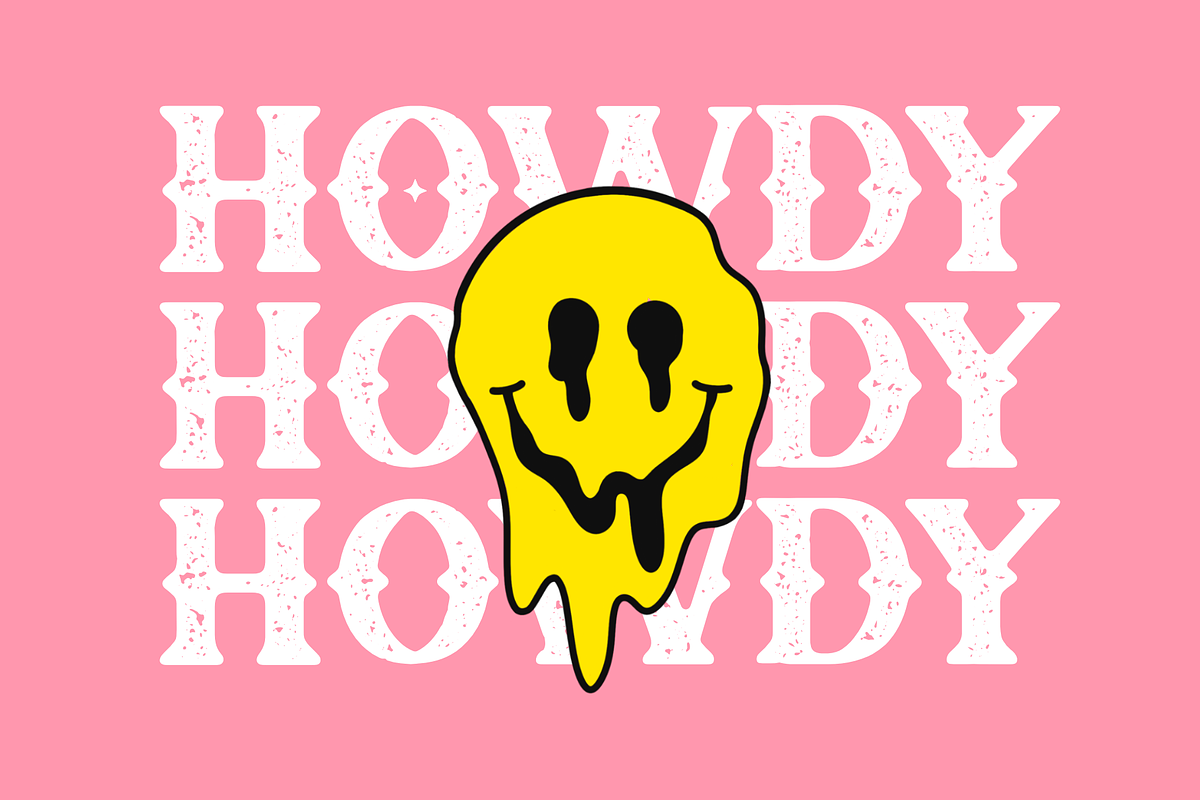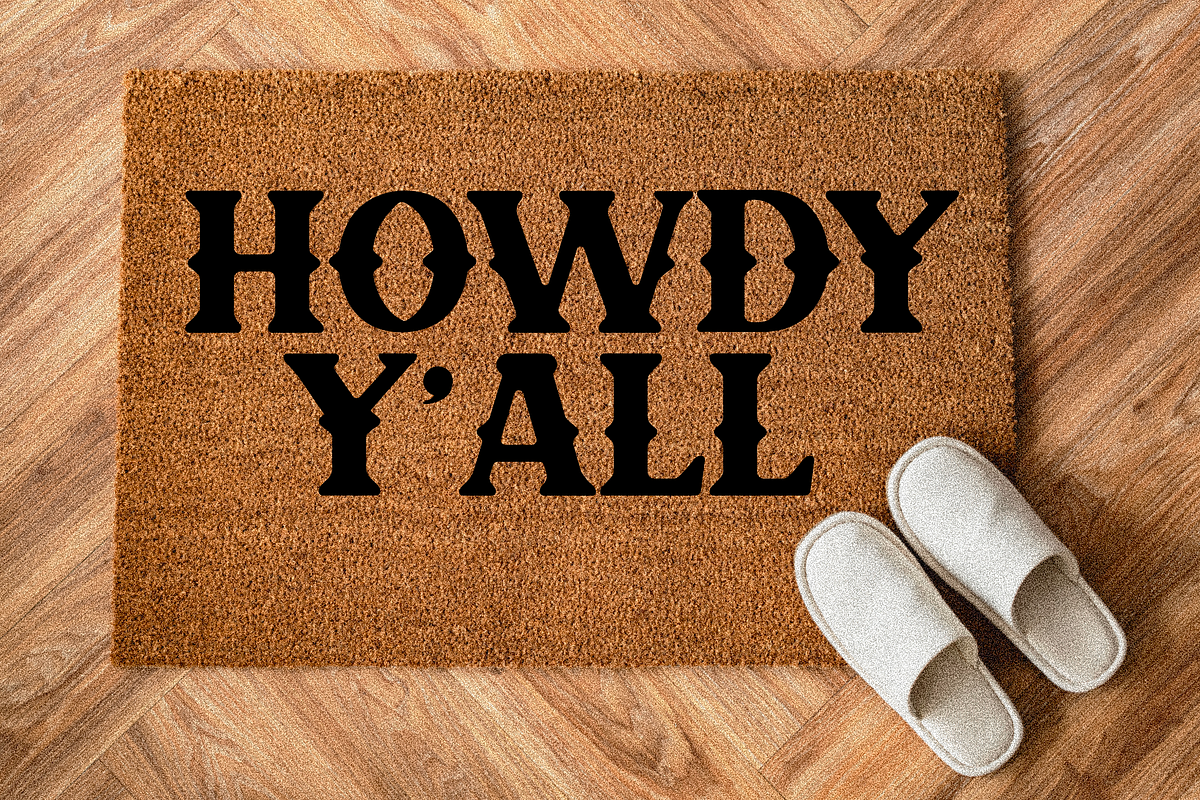
Howdy Mama - Western Font, Bold Font
Howdy Mama is a western stamp Serif font style that is perfect for creating designs that evoke a sense of the American West. This font features bold and thick letters that have a stamped or pressed appearance, which gives it a rustic and vintage feel. The font has a handcrafted look that resembles the type of lettering you might see on old posters, signs, or packaging from the Wild West era.
Howdy Mama is great for designing logos, headlines, titles, and other text-based graphics that need a bold and attention-grabbing look. Overall, Howdy Mama is a fun and unique font that can add a touch of cowboy flair to any design project.